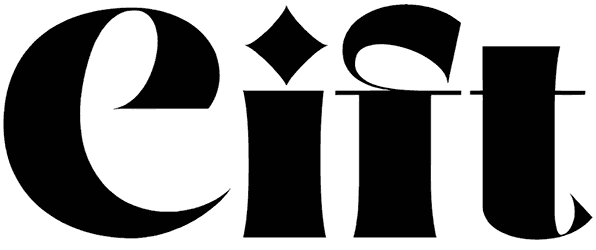
Cift Font
Some typefaces have a quiet confidence; they don’t scream for attention, but they make every word feel thoughtfully placed. That’s exactly the personality Cift brings to your designs. With its clean lines and subtle geometric rhythm, this font feels both contemporary and approachable, striking a nice balance between modern minimalism and friendly readability.
This serif font works beautifully in editorial layouts, clean branding systems, lifestyle packaging, minimalist posters, and user interfaces where clarity and character matter equally. The charm of Cift isn’t in gimmicks; it’s in how naturally it lets your message breathe and feel intentional. Sometimes the right typeface doesn’t shout; it simply elevates everything around it.